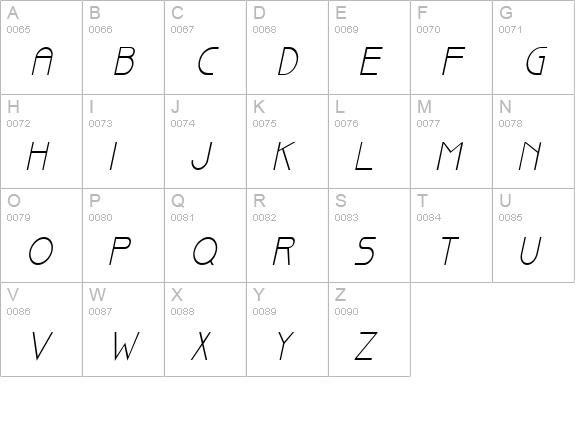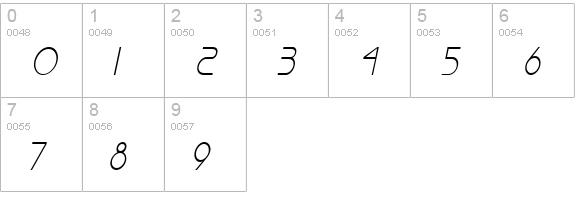
Basque-Condensed Italic is a distinctive, condensed-width, italic variant in the Basque typeface family \xE2\x80\x94 well suited to design and typography projects.
The Basque-Condensed Italic font is a sleek and elegant typeface with a modern twist. Its condensed design gives it a sophisticated and contemporary look, perfect for adding a touch of style to your projects. The italic style adds a sense of movement and flair, making it an ideal choice for headings, quotes, and other eye-catching text. This font is not only visually appealing but also highly versatile, making it suitable for a wide range of design applications. Whether you're working on a website, brochure, poster, or any other project, the Basque-Condensed Italic font is sure to make a statement. Best of all, this font is free to download at FontsMarket.com, allowing you to easily access and use it in your designs without any cost. With its combination of style, versatility, and accessibility, the Basque-Condensed Italic font is a must-have addition to your font collection.